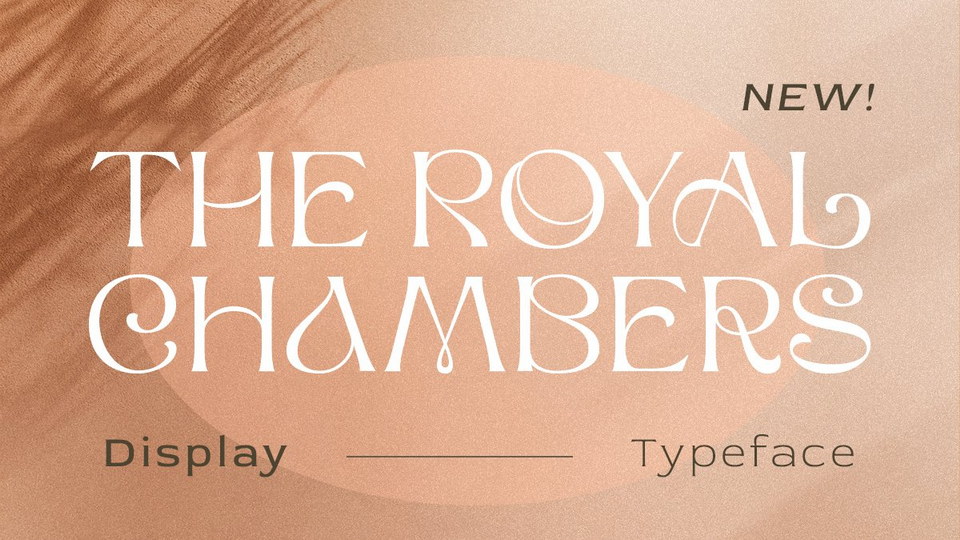
Download The Royal Chambers font, a sophisticated display serif typeface. The Royal Chambers font has been made carefully to make sure its premium quality and luxury feel.